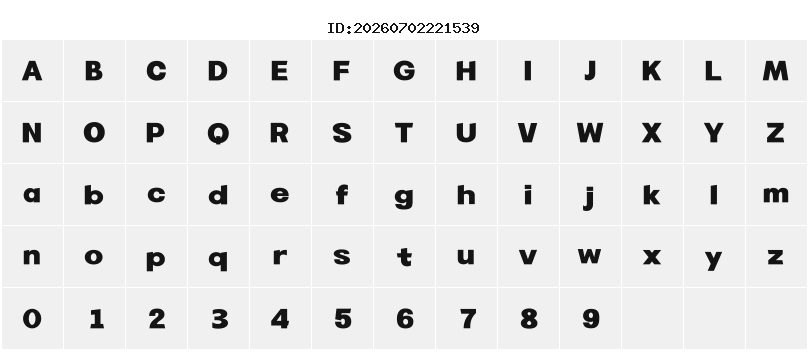
216-上首招财猫体 Preview
• Font Name: 216-上首招财猫体
• Font ID: 216-SSZhaoCaiMaoTi:Version 6.00
• Full Font Name: 216-上首招财猫体
• Version: Version 6.00 January 18, 2023
• PostScript Name: 216-SSZhaoCaiMaoTi
• Character Count: 7569
• Manufacturer: 上首造字
About 216-上首招财猫体.ttf
216-上首招财猫体.ttf is a modern, elegant sans-serif font designed for ultimate readability and visual harmony. Perfect for branding, headlines, web design, and print materials.